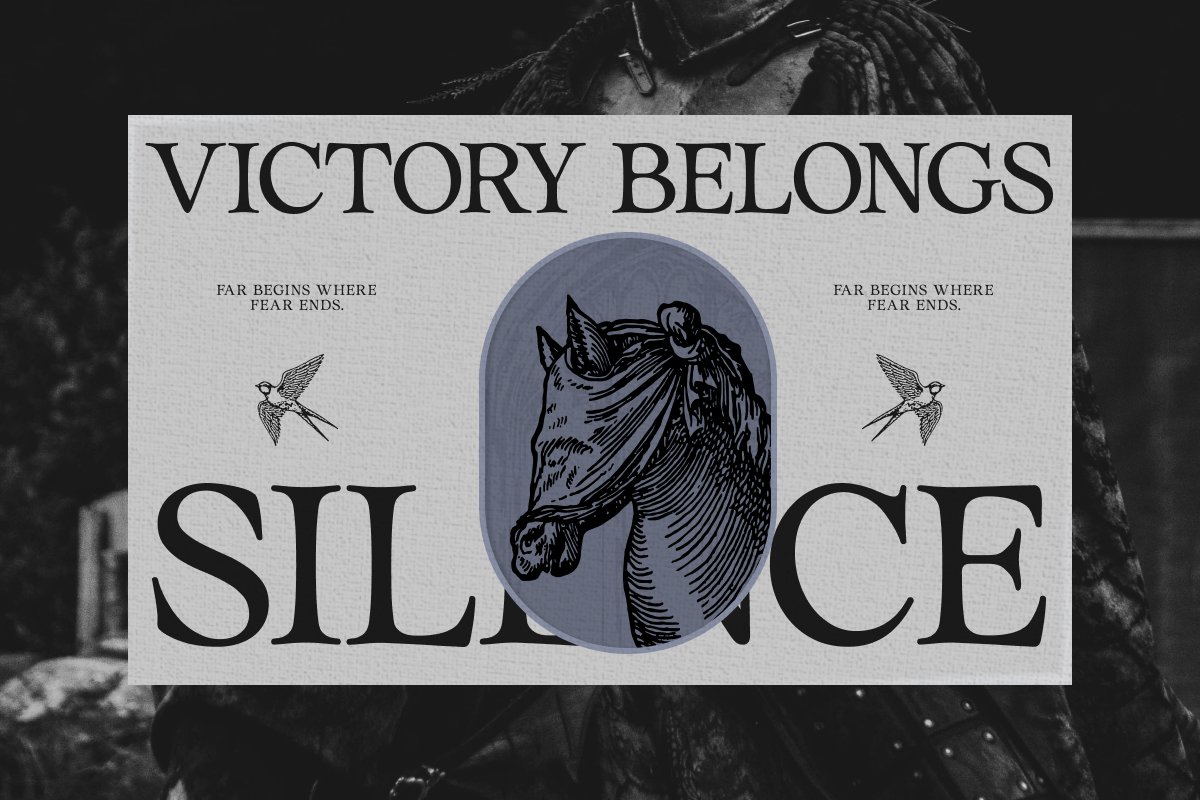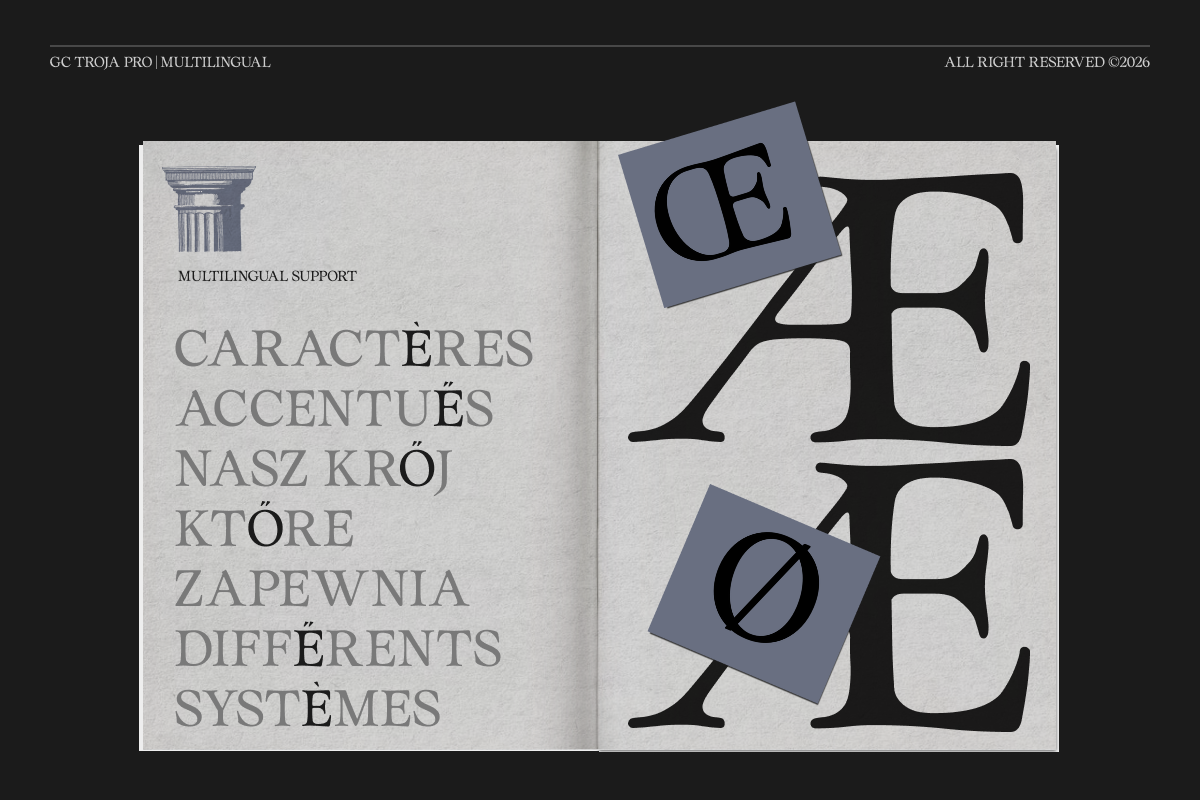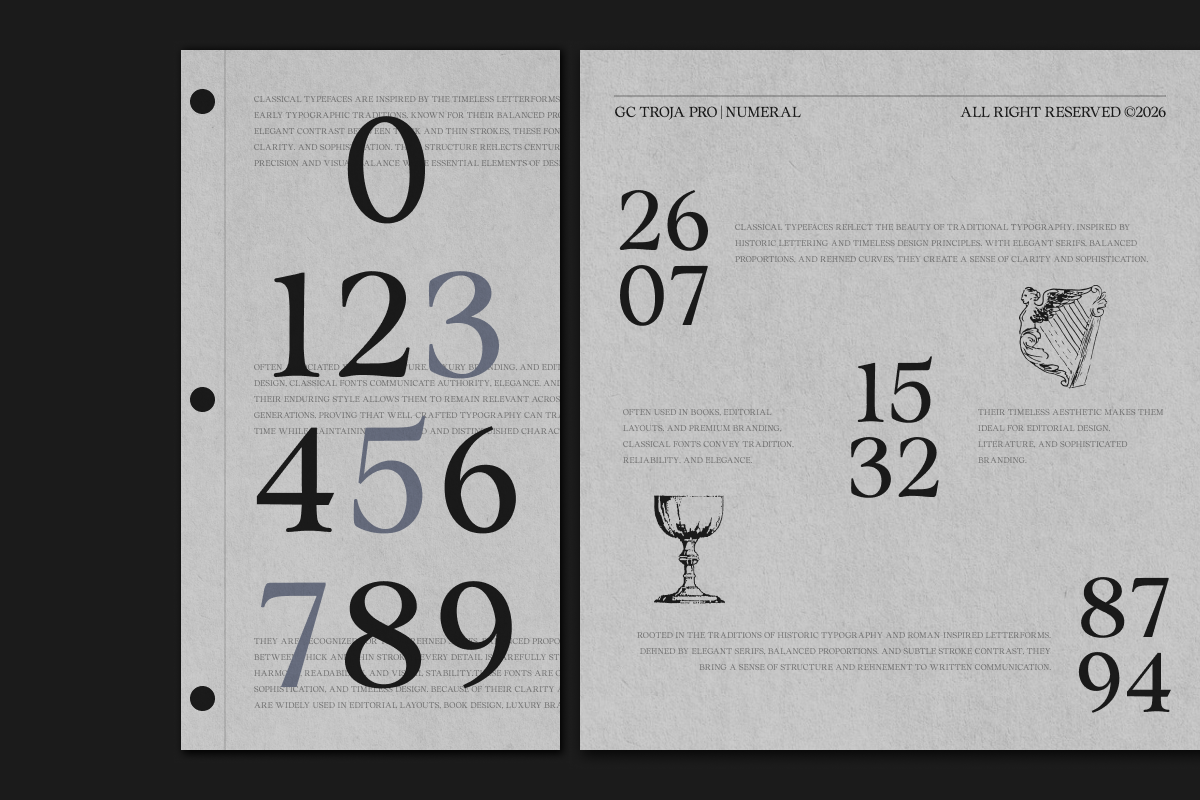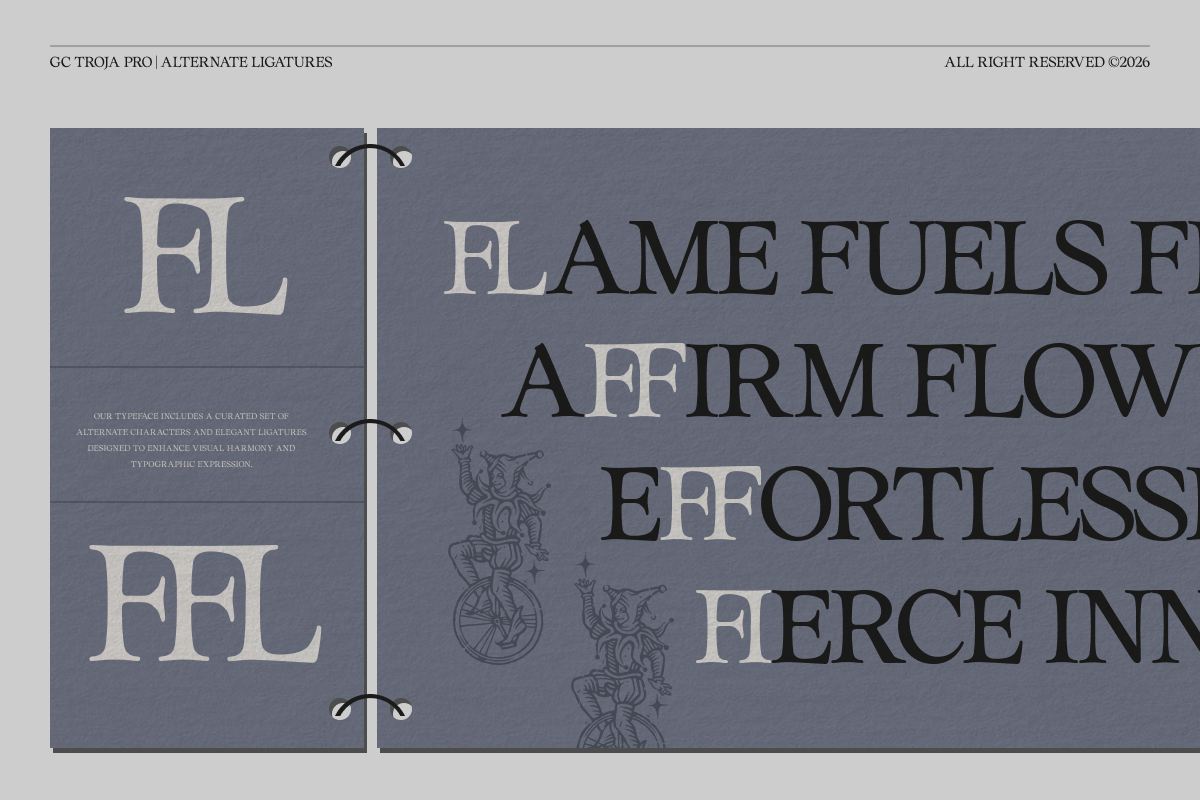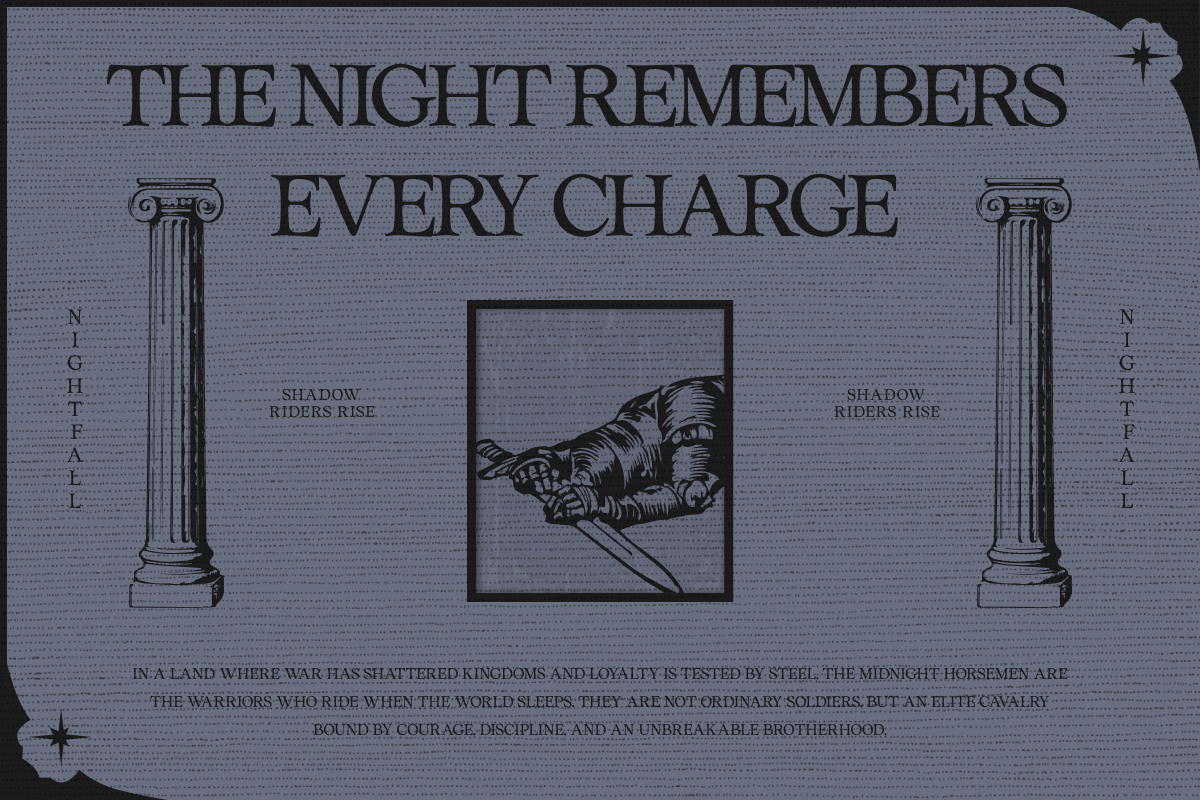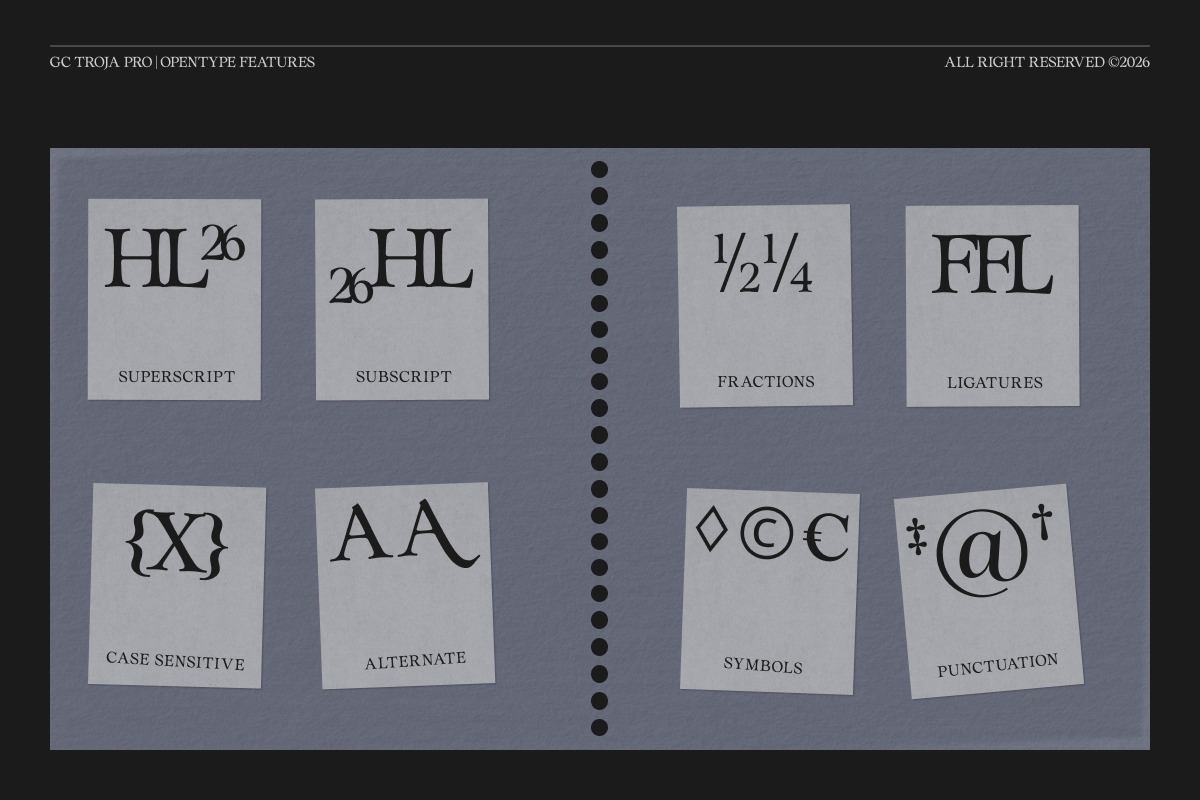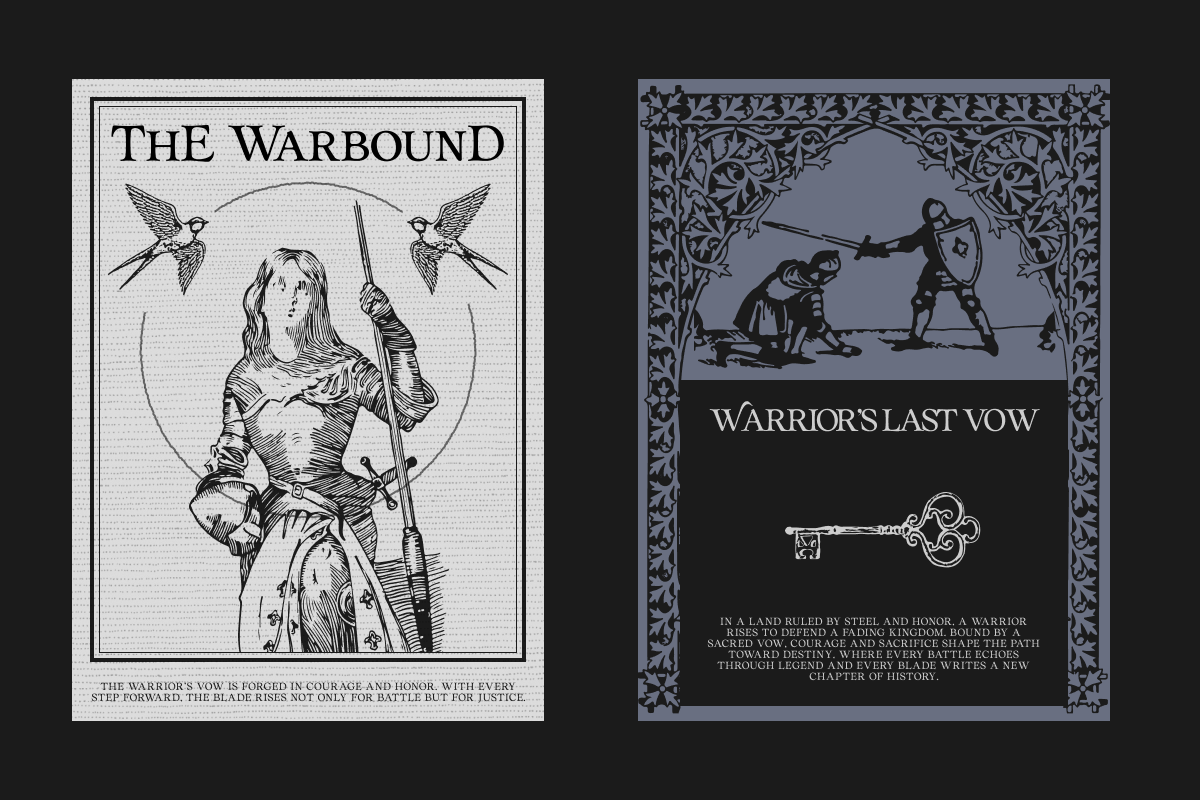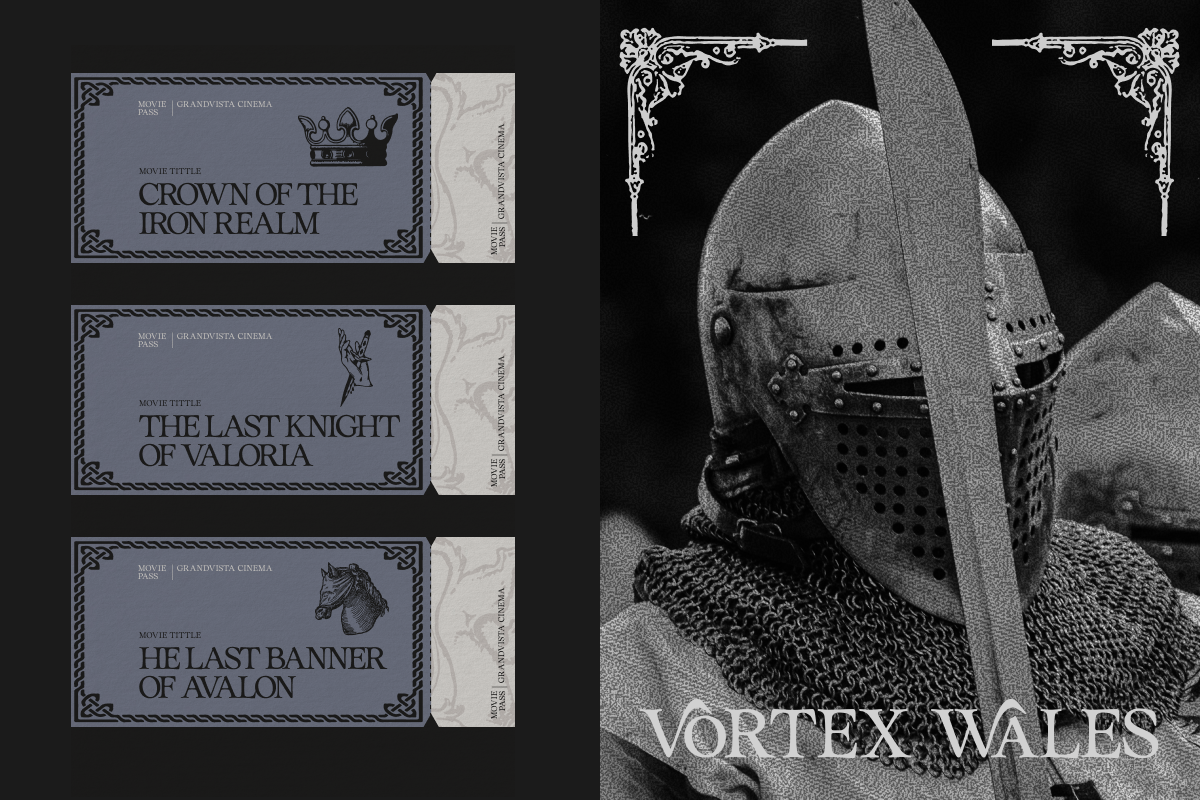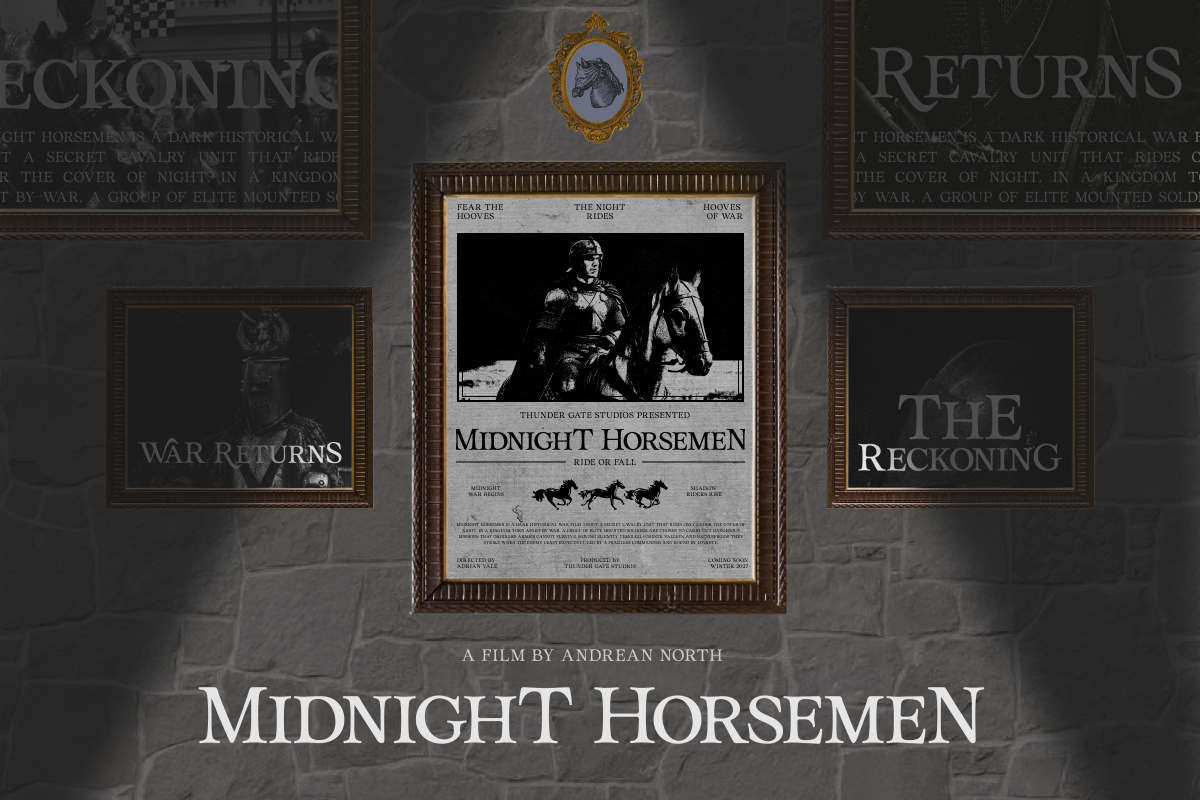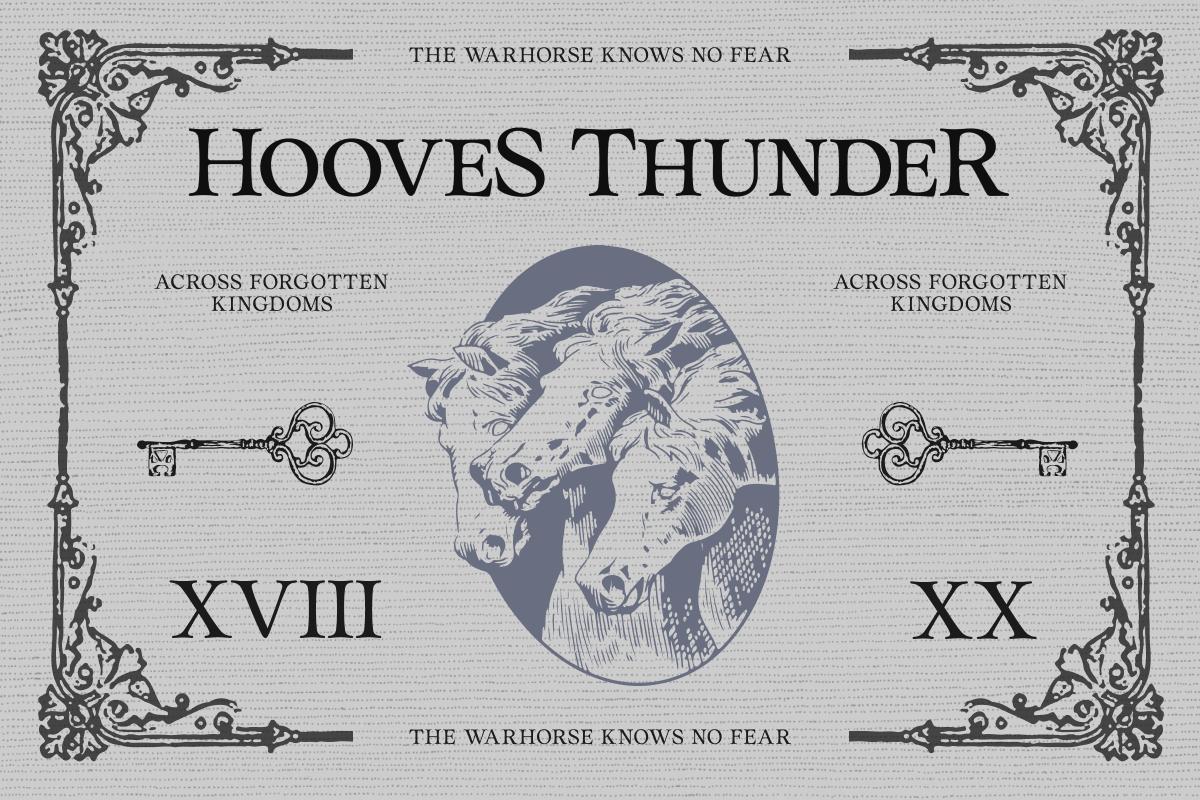
GC Troja Pro - Classic Retro Serif
GC Troja Pro – Classic Retro Serif is a refined serif typeface inspired by timeless classical elegance and vintage editorial aesthetics. Designed with strong sculpted serifs, balanced proportions, and expressive old-style details, Troja Pro delivers a sophisticated typographic voice that feels both authoritative and graceful.
With its sharp terminals, subtle curves, and confident vertical structure—as seen in its distinctive letterforms—GC Troja Pro creates a strong visual presence rooted in heritage and refinement. The classic serif construction adds a sense of prestige and permanence, making it ideal for luxury branding, editorial headlines, book covers, packaging, and historical-inspired visual identities.
Crafted to perform beautifully across both print and digital media, GC Troja Pro blends traditional serif beauty with modern usability. Its elegant proportions ensure excellent readability while maintaining a bold and memorable display presence.
Whether used for sophisticated headlines, premium branding, or classic editorial compositions, GC Troja Pro brings heritage, elegance, and timeless serif character to your typography.
- Classic Old-Style Serif Construction
- Sharp Terminals & Refined Curves
- Elegant Display Character
- Multilingual Support (170+ Languages)
GC Troja Pro — where classical elegance meets refined editorial presence.